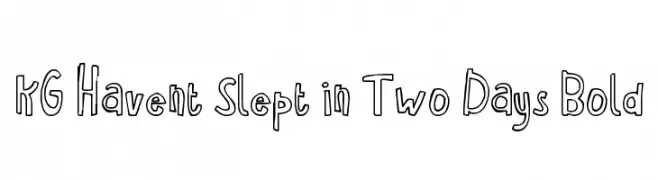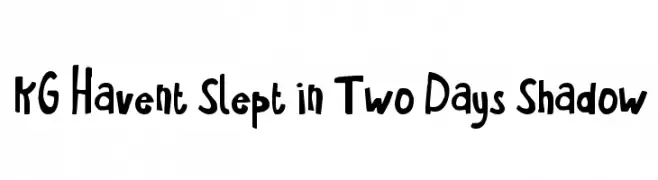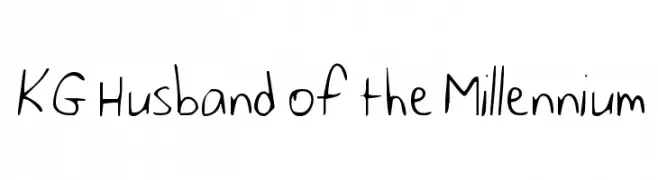
A playful, casual handwritten font with fluid strokes and a natural flow.
A playful, casual handwritten font with a friendly and informal style.
A whimsical, hand-drawn font with playful, irregular letterforms.
A playful, hand-drawn font with a quirky, doodle-like style.
A playful, hand-drawn font with bold outlines and a whimsical style.
A playful, hand-drawn font with bold, irregular characters and a whimsical style.
A playful, casual handwritten font with dynamic strokes and a friendly appearance.
A playful, handwritten-style font with a casual and friendly appearance.
A playful, handwritten font with a whimsical and friendly style.
A fluid, cursive handwritten font with elegant, connected characters.